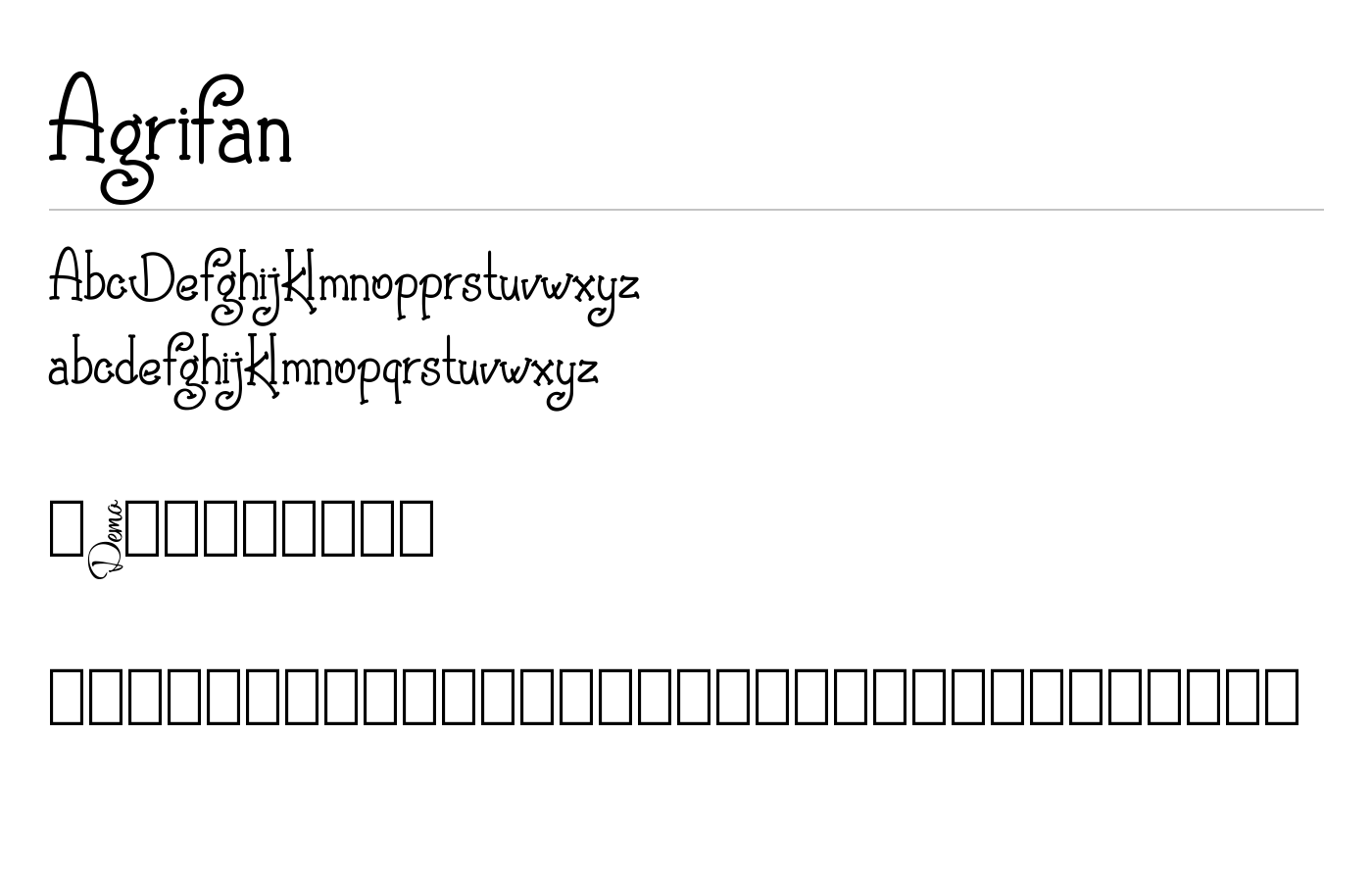
Agrifan is a whimsical serif font characterized by its playful and decorative strokes, featuring unique loops and curls that add a charming, hand-drawn feel. Its light weight, narrow width, and slightly tall x-height make it ideal for creative projects, children’s books, or casual branding where a friendly, approachable vibe is desired. This font works best in headlines and logos where its distinctive style can shine without compromising readability.
Agrifan Font
About Agrifan Font
| Font family | Agrifan Font |
| Designer | Eva Barabasne Olasz |